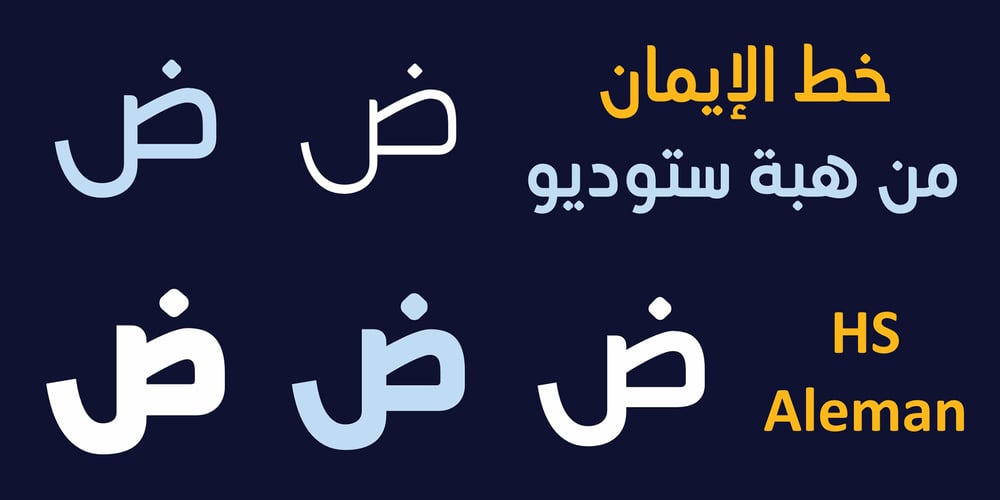
HS Aleman Font Family was designed by Hasan Abu Afash and published by Hiba Studio. HS Aleman contains 5 styles and family package options. HS Aleman is a modern OpenType Arabic Typeface. It is a modern Kufi / Naskh hybrid and keeps the balance between its construction and its flexibility in the transition between the thick and thin parts and it also contains a harmonious smooth curve at its parts in all characters, numbers and marks. This font contains some extended characters (swash), some variants of some characters (Stylistic Set), which gives the user some flexibility in using some characters. The font weights are refined with enhanced legibility and are ideally suited to advertising, extended texts in magazines, newspapers, book and publishing, and creative industries, meeting the purposes of various designs. This typeface supports Arabic, Persian, Pashtu, Kurdish Sorani, Kurdish Kirmanji and Urdu variants and it is available in ”’five weights: light, regular, medium, bold and black.